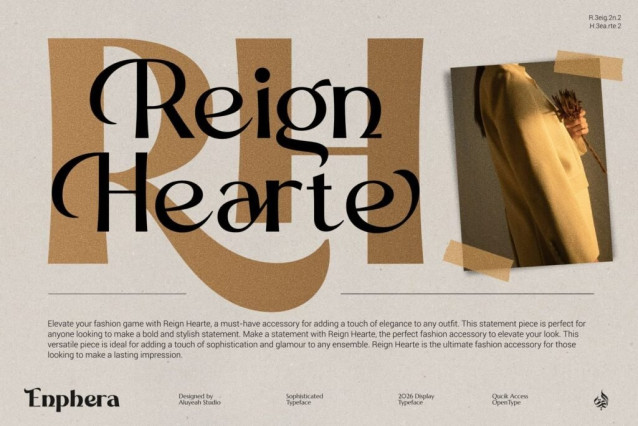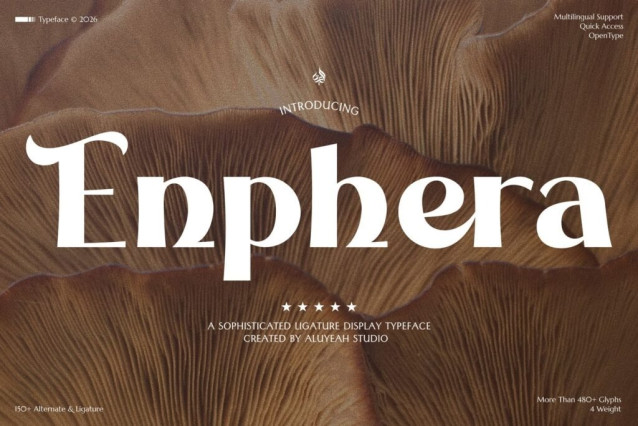
Enphera Font
Enphera Font, a stylish ligature display typeface that exudes both sophistication and versatility. Featuring 4 weights, more than 480+ glyphs, OpenType, multilingual, and quick access to over 150+ alternates and ligatures. Ideal for crafting captivating designs, Enphera is a must-have for any designer looking to elevate their work.